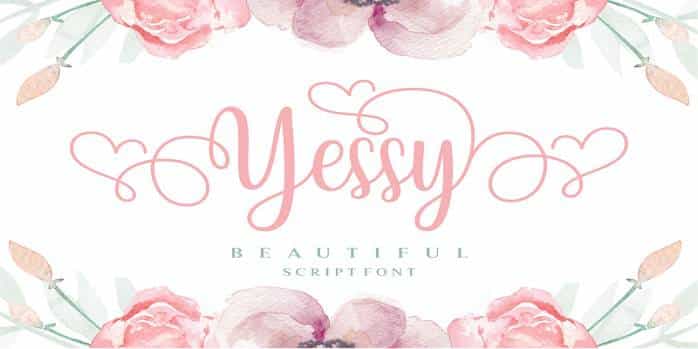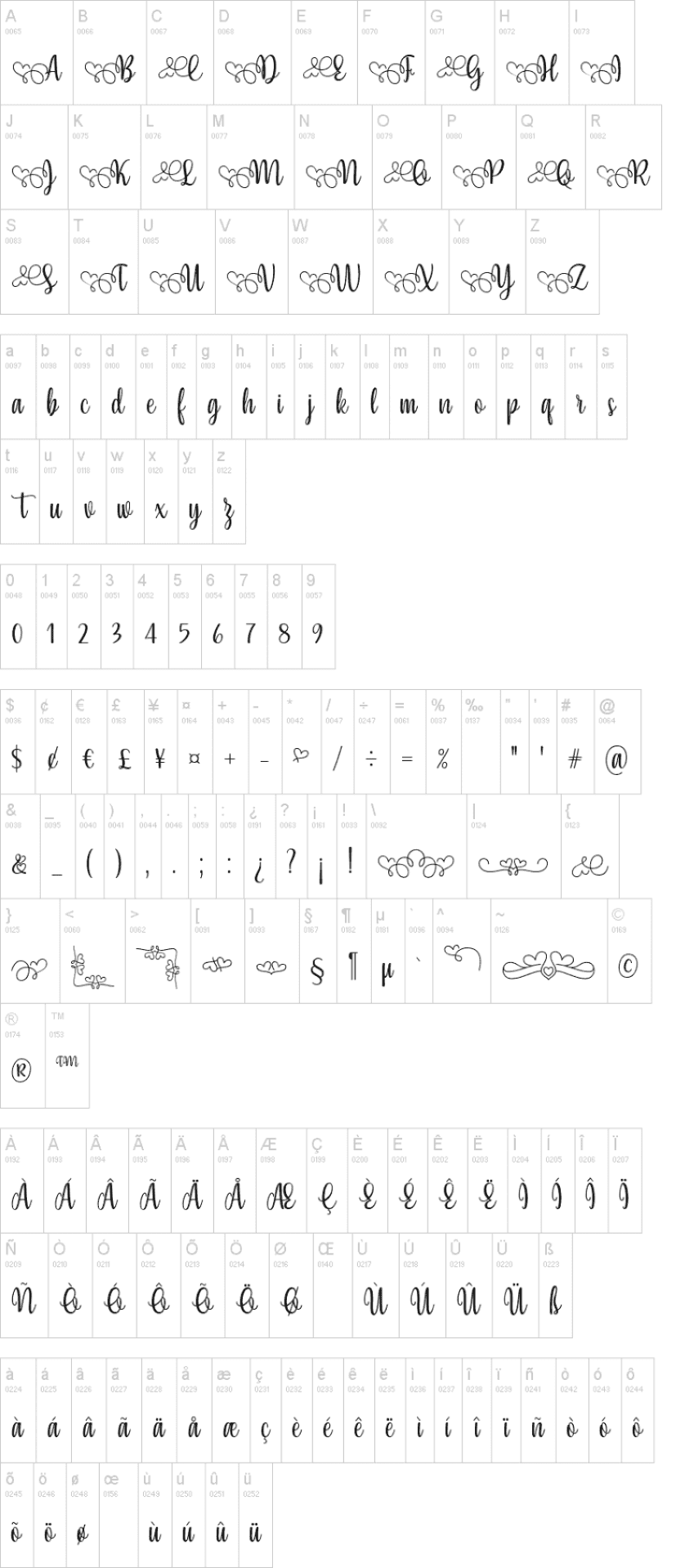
Discover Yessy Font, part of the Calligraphy collection—a versatile and unique font perfect for adding a personal touch to your projects. Download it for free and enjoy crafting designs with style, from invitations to social media posts. This font is available exclusively for personal use, giving you the freedom to create without limits. Unlock your creativity with Yessy Font today!